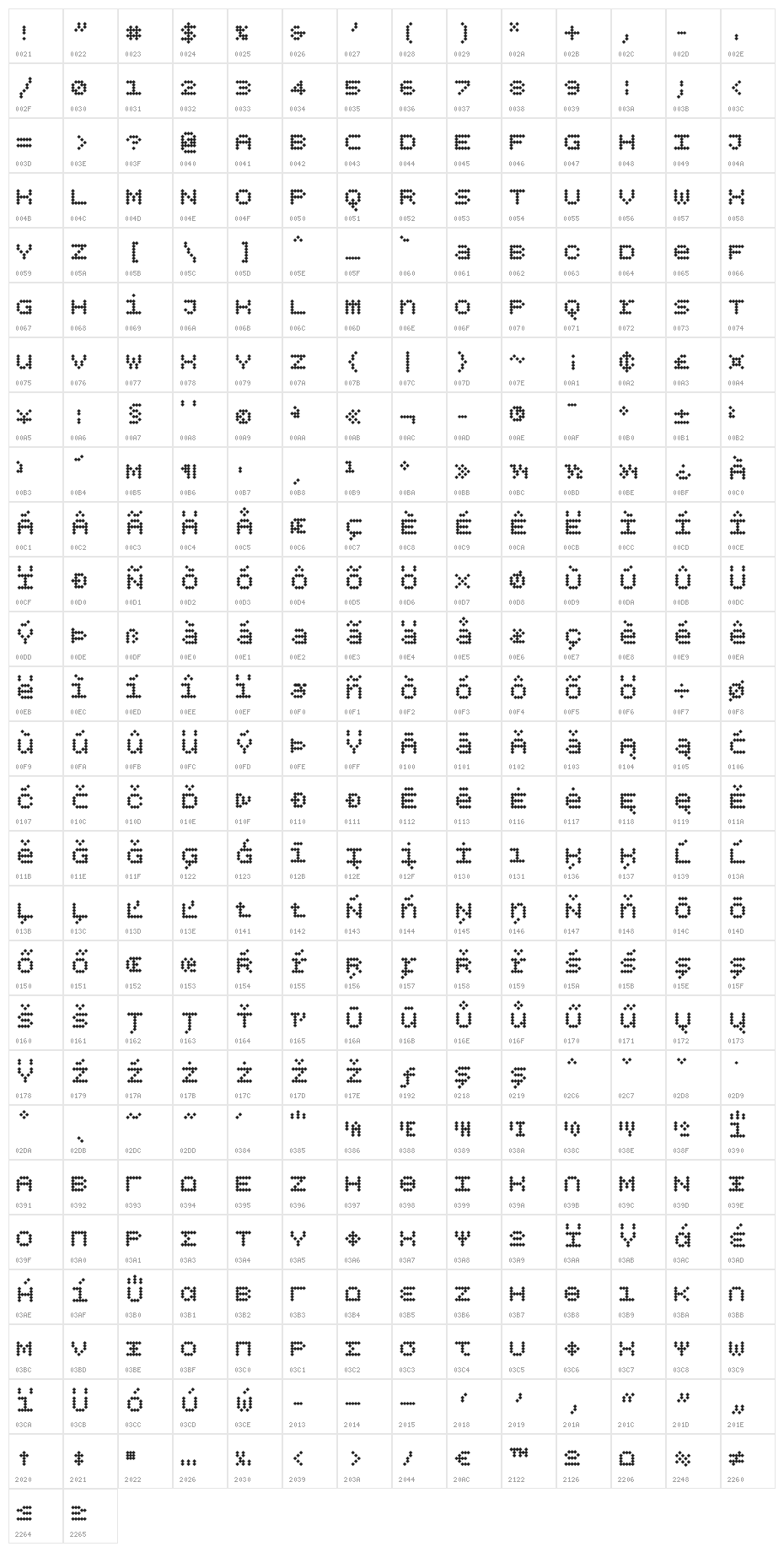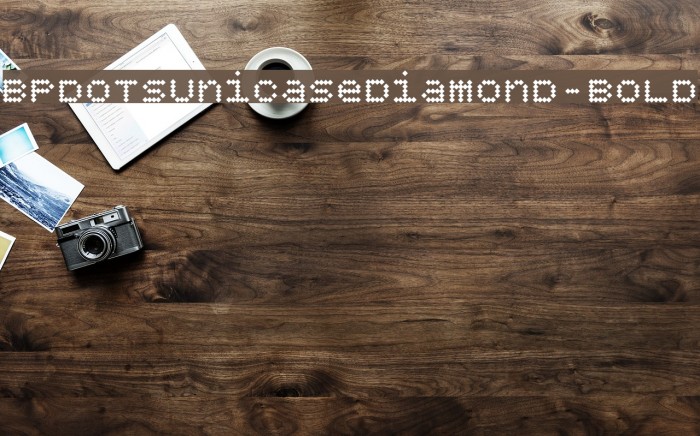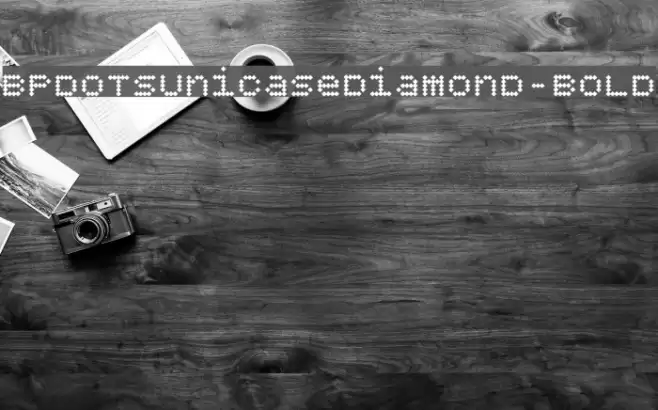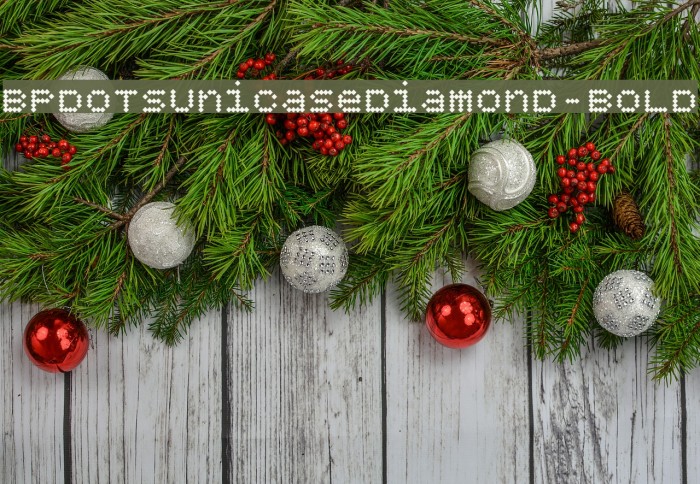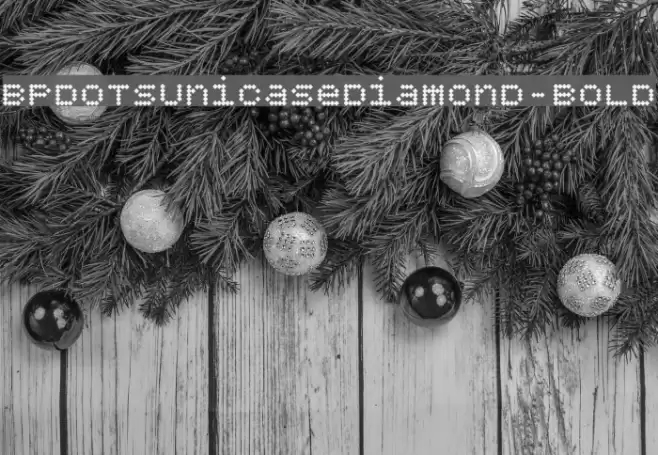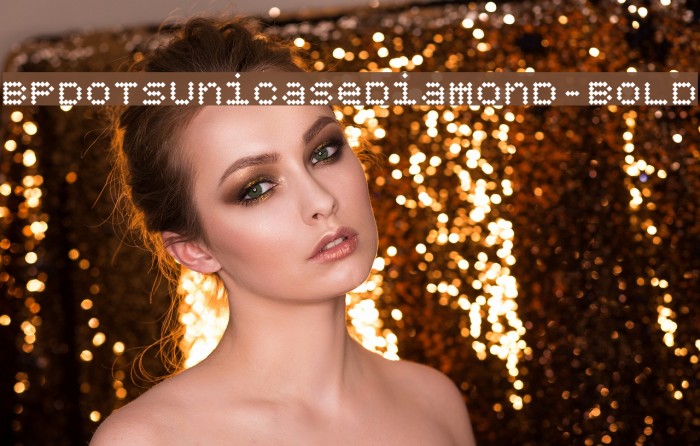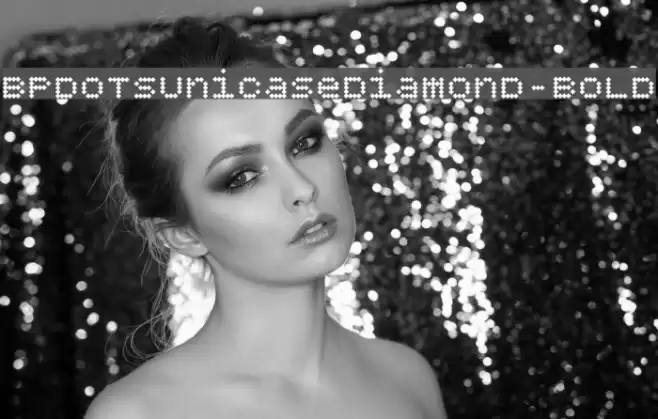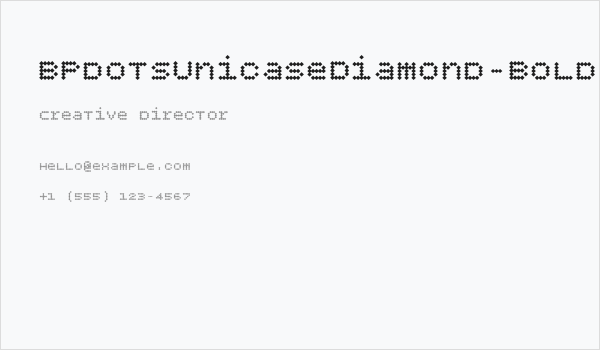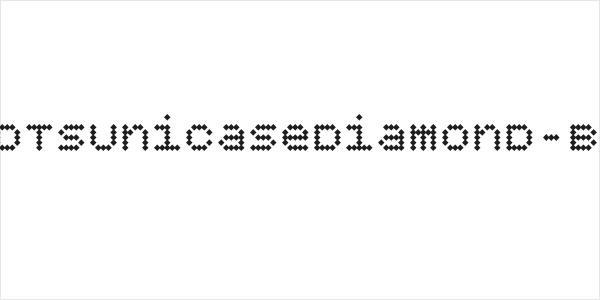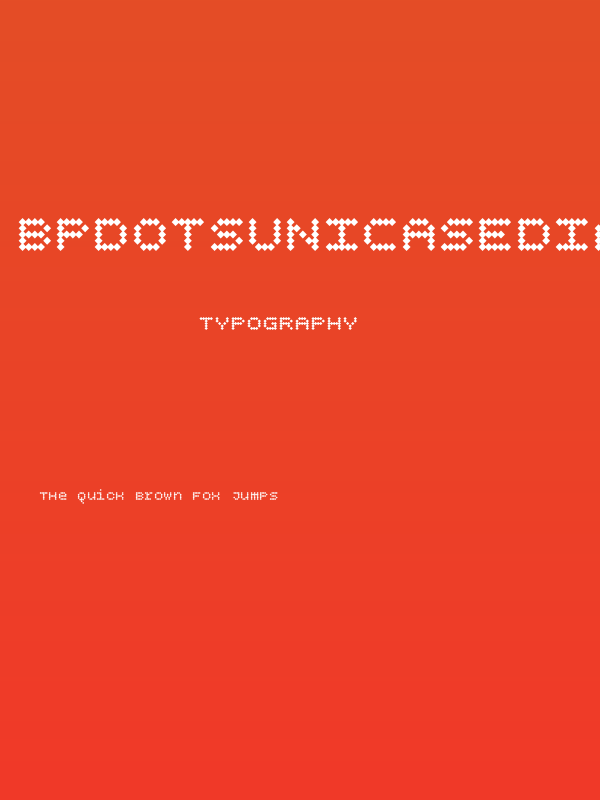
BPdotsUnicaseDiamond-Bold Font
BPdotsUnicaseDiamond-Bold Description
This font features a unique and playful design composed entirely of diamond-shaped dots. Each character is constructed with a consistent pattern of these dots, creating a pixelated and geometric appearance. The font maintains uniformity in its design, with each letter and number adhering to the same grid-like structure. This gives it a cohesive and modern look, while the use of diamond shapes adds a decorative and artistic flair. The font is bold and eye-catching, making it suitable for projects that require a distinctive and unconventional style. Its geometric nature lends itself well to digital and tech-themed designs, as well as creative and artistic projects.
| Proposed Projects | Ideal for digital art, tech-themed designs, creative posters, and modern branding projects. |